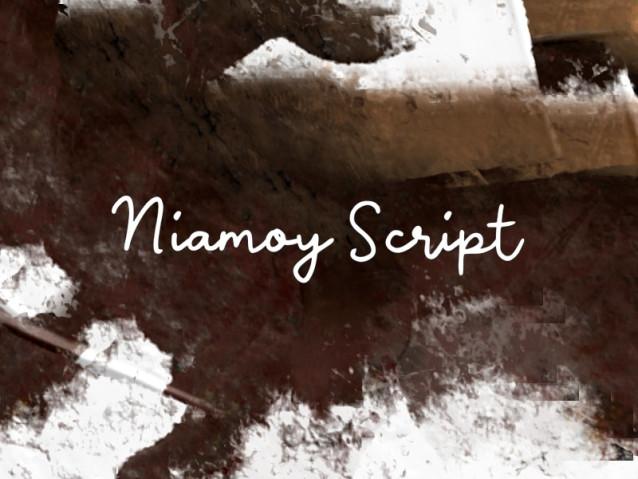
Niamoy Script Font
Niamoy Script Font is a simple and friendly handwritten font. Its natural and unique style makes it incredibly fitting to a large pool of designs. The only limit is your imagination!